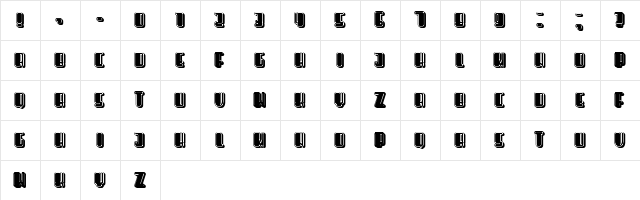
Releases Filled Regular
Design Context for Releases Filled Typeface
Releases Filled is a composed and adaptable typeface that performs quietly and consistently across a wide range of design contexts.